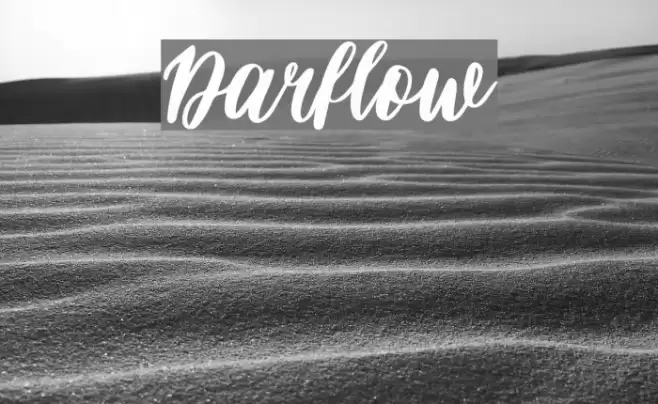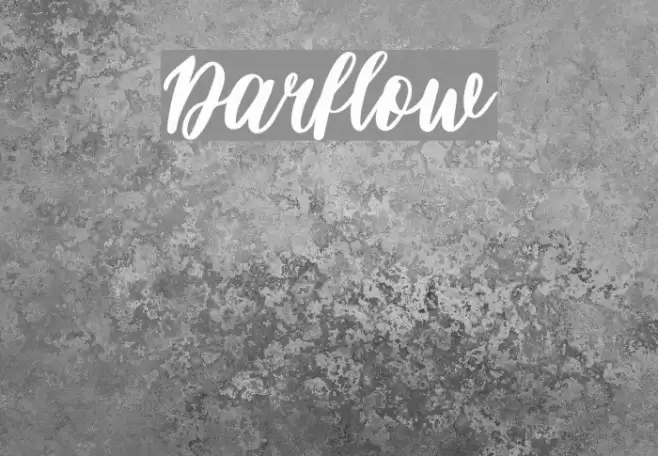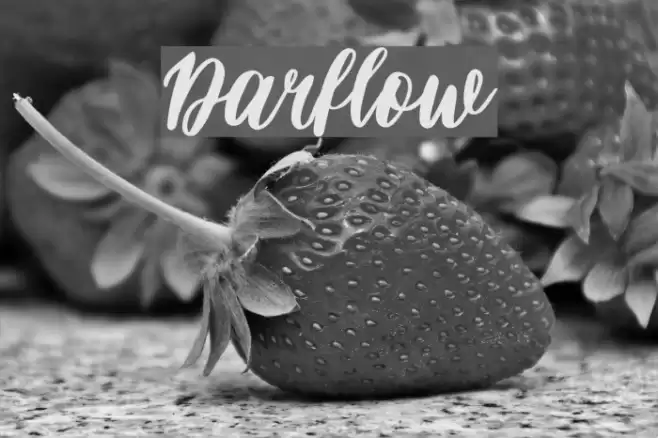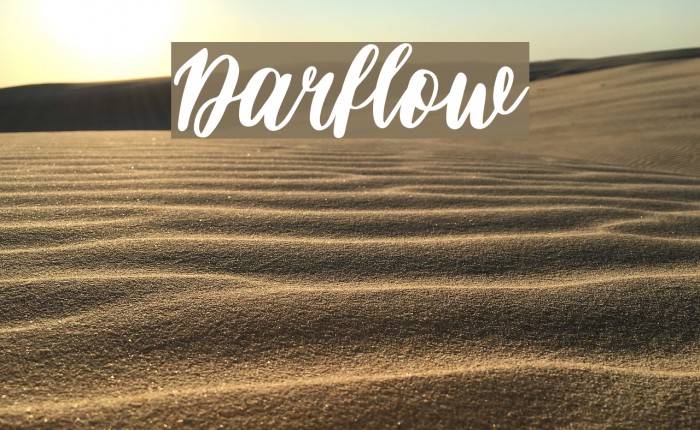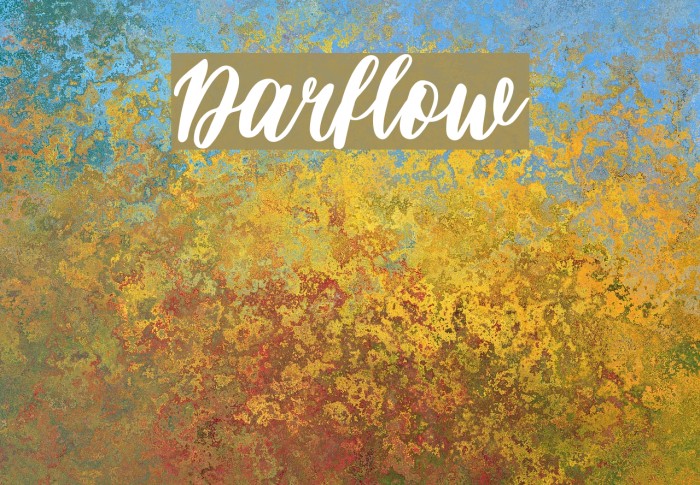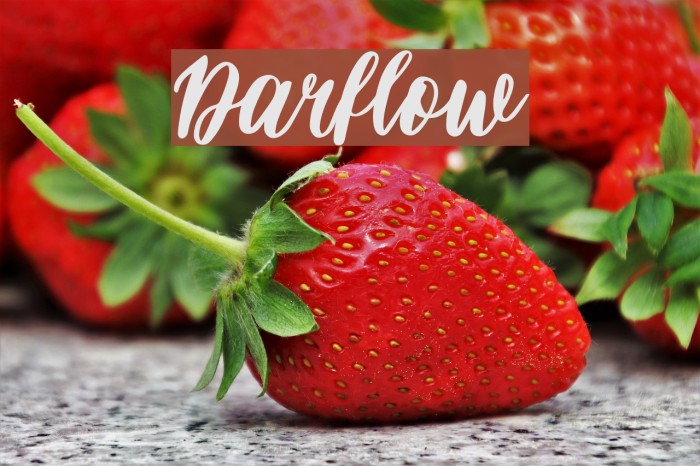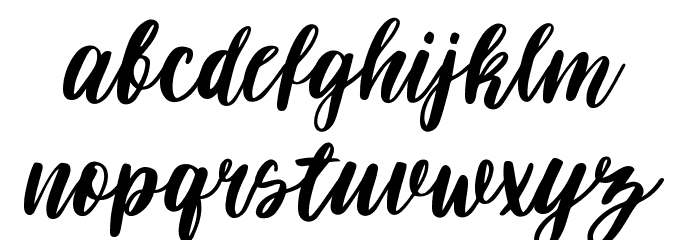
Darflow Font
Darflow Description
This font features a bold and flowing script style, characterized by its elegant and connected letterforms. The strokes are thick and consistent, providing a strong visual impact. The uppercase letters are slightly more ornate, with flourishes that enhance the overall decorative appearance. The lowercase letters maintain a smooth and cohesive flow, making it suitable for creating a sense of movement and grace. The font's design is both modern and stylish, making it ideal for projects that require a touch of sophistication and flair.
A bold, flowing script font with elegant, connected letterforms from Uncategorized fonts.
- Proposed Projects: Ideal for wedding invitations, branding, logos, and social media graphics.
- Use Case: Logos, Headlines, Invitations